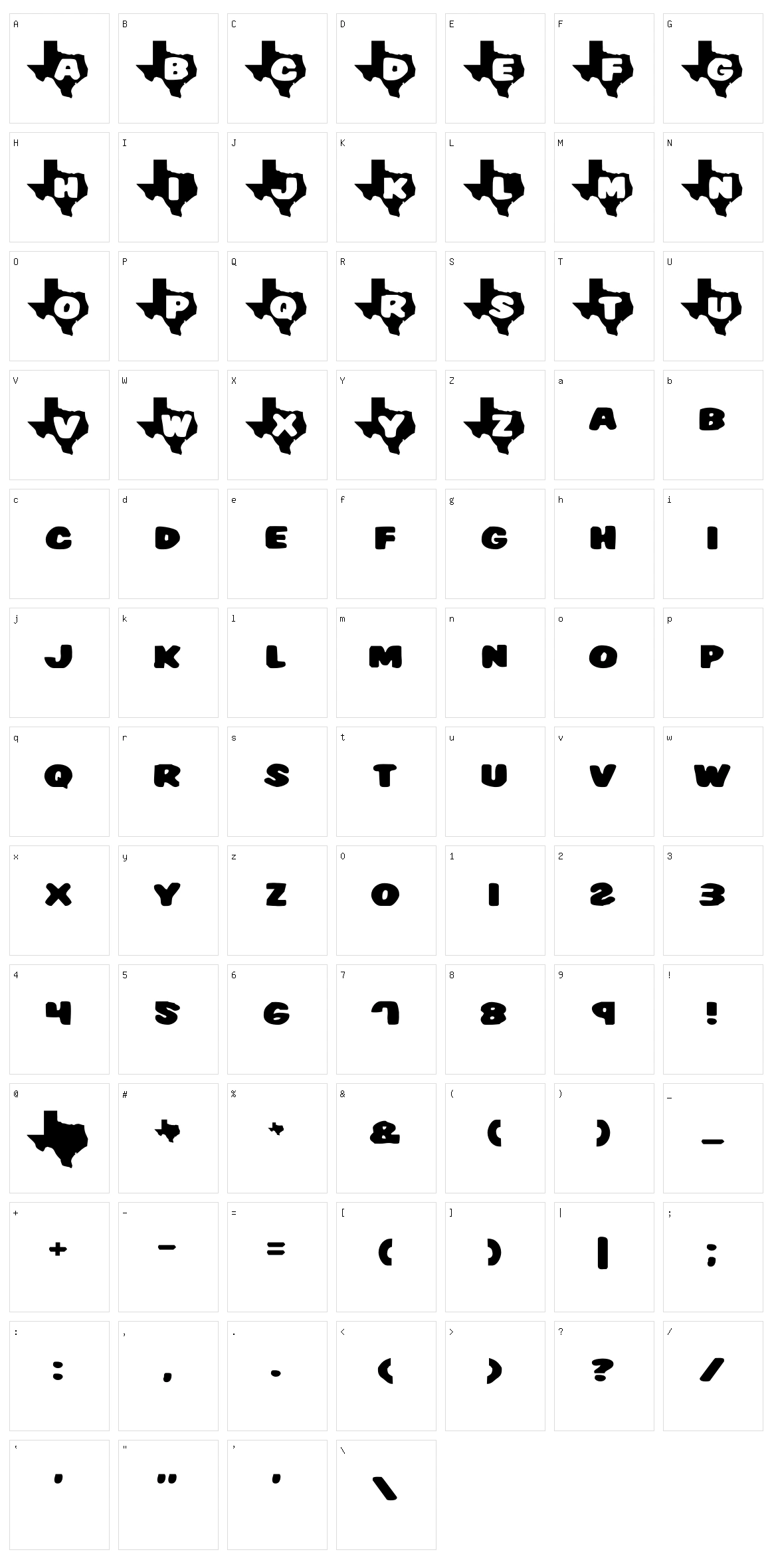
Texas has slightly larger capital letters in the Texas outline than the Texas 2 font to create a version that shows a little less of Texas's shape.
Texas 2 has slightly smaller capital letters in the Texas outline than the Texas font to create a version that shows a little more of Texas's shape.